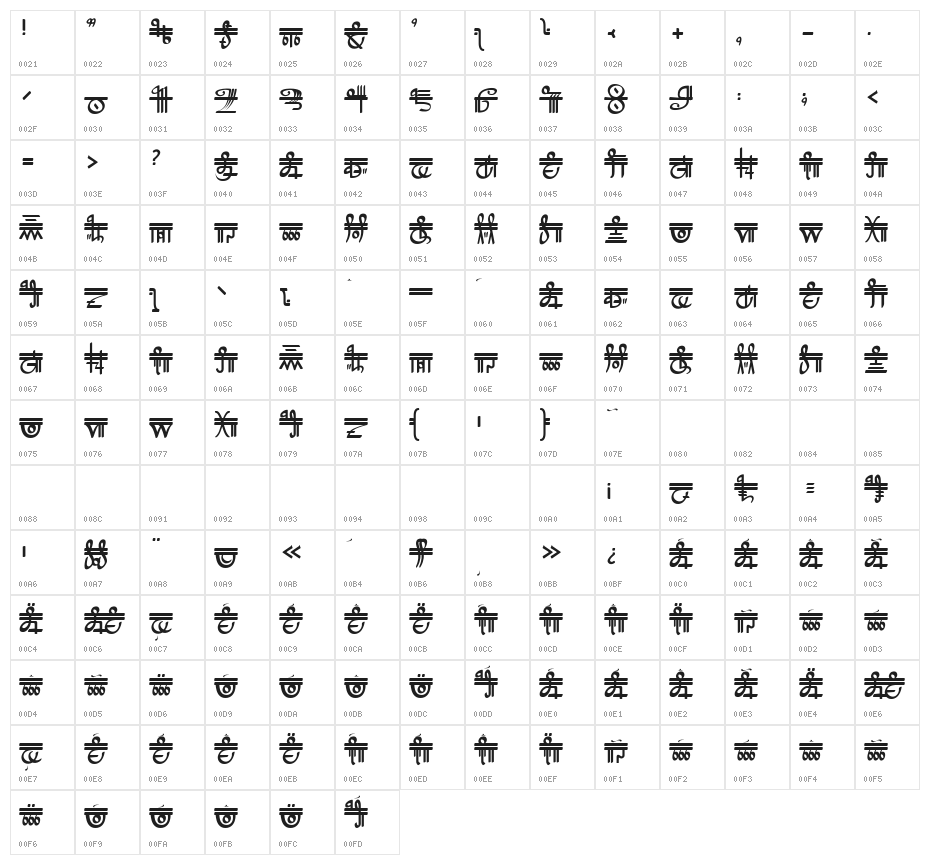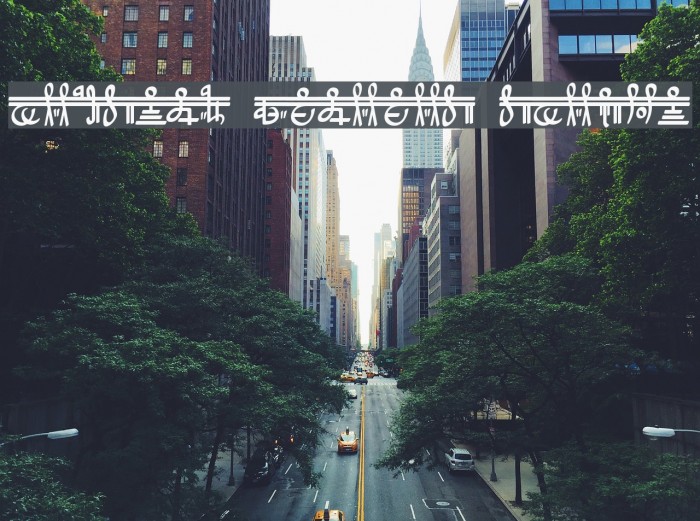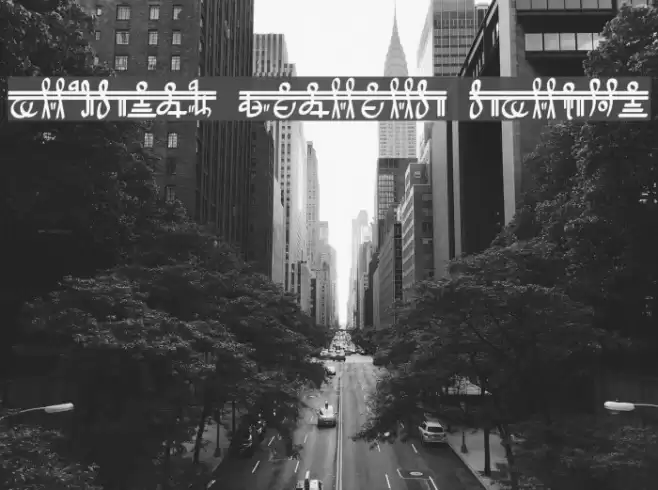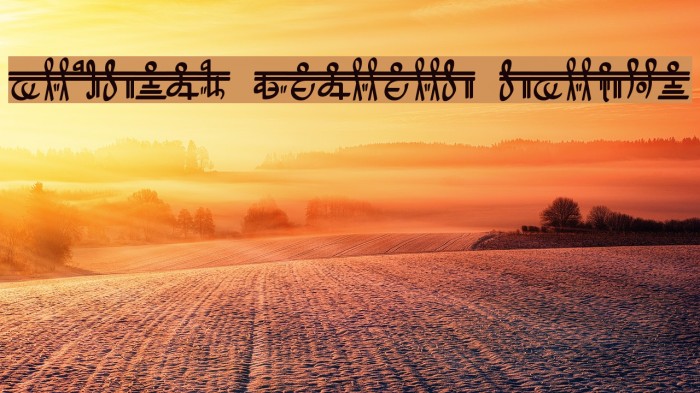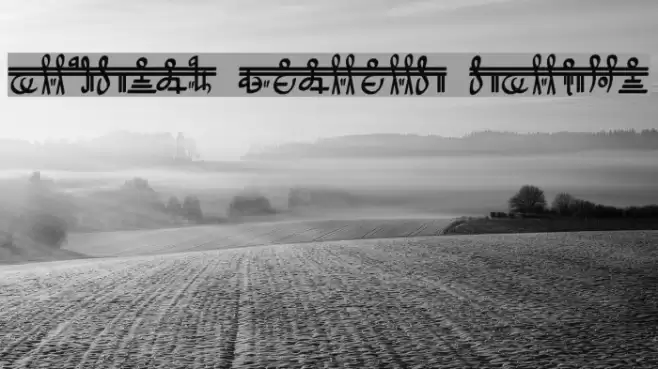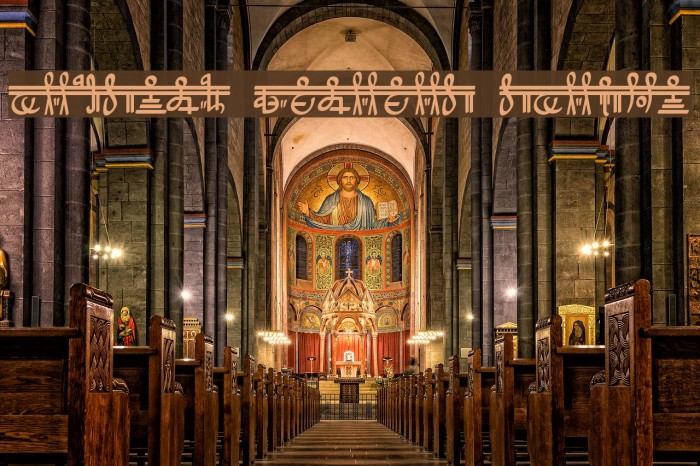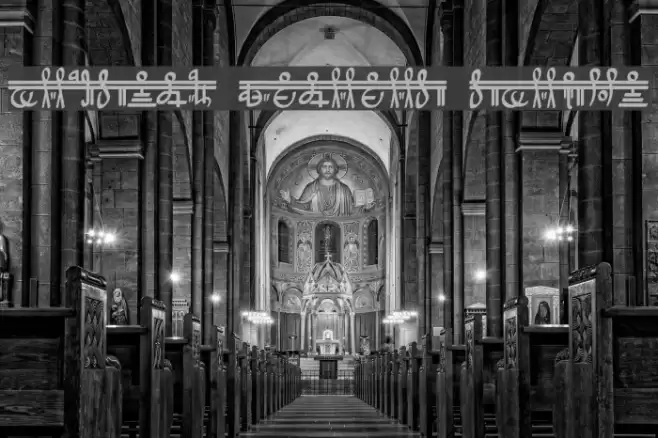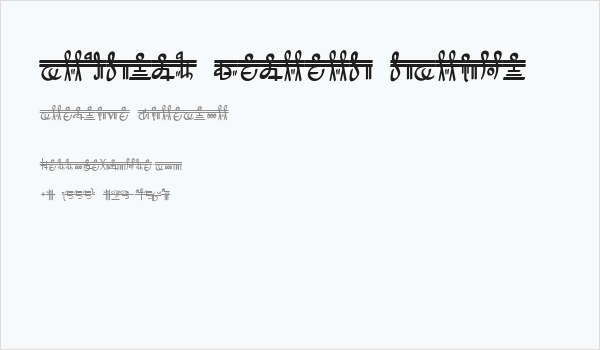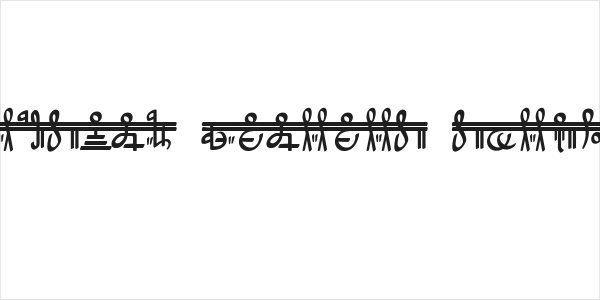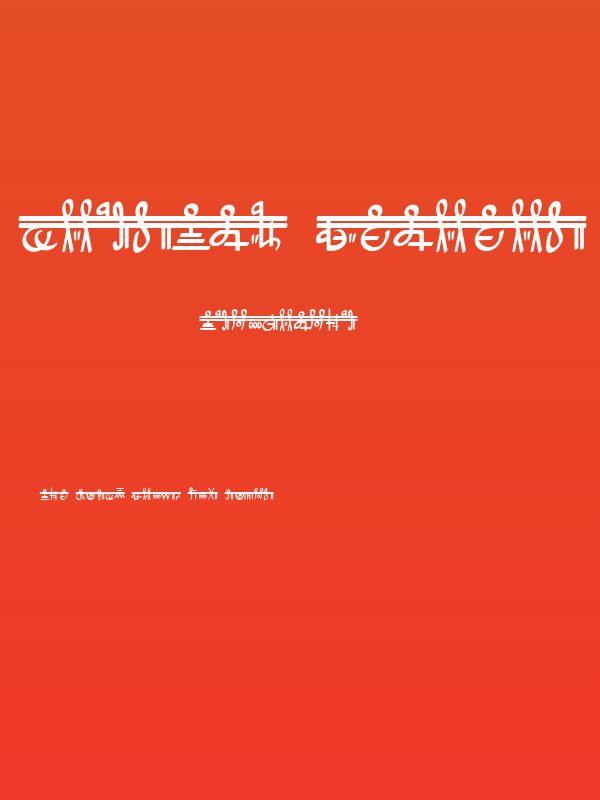
Crystal Bearers Script Font
Crystal Bearers Script Description
This font features a highly decorative and intricate design, characterized by its unique and artistic glyphs that resemble ancient scripts or mystical symbols. The characters are adorned with elaborate loops and curves, giving them an ornamental appearance. The strokes are bold and consistent, with a medium contrast that adds to the visual complexity. The overall style is reminiscent of fantasy or magical themes, making it stand out as a display font. The spacing between characters is relatively tight, enhancing the compact and cohesive look of the text.
| Proposed Projects | Ideal for fantasy-themed projects, game titles, book covers, or any creative work requiring a mystical or ancient aesthetic. |